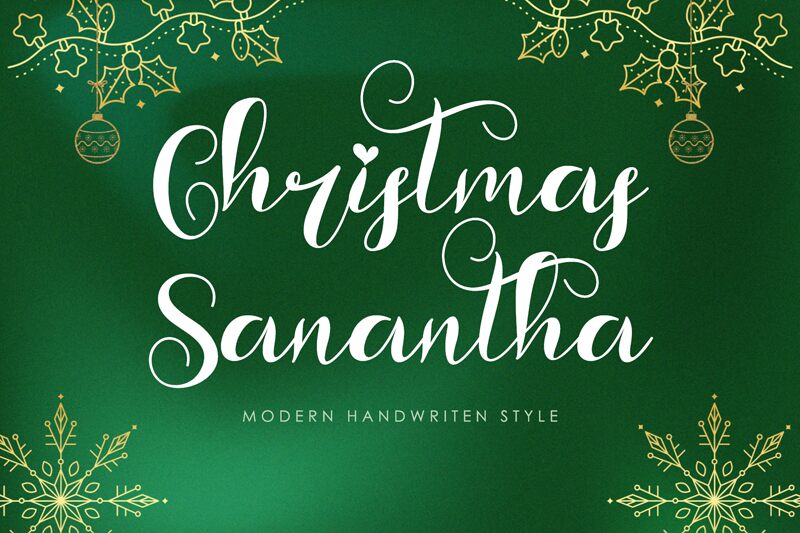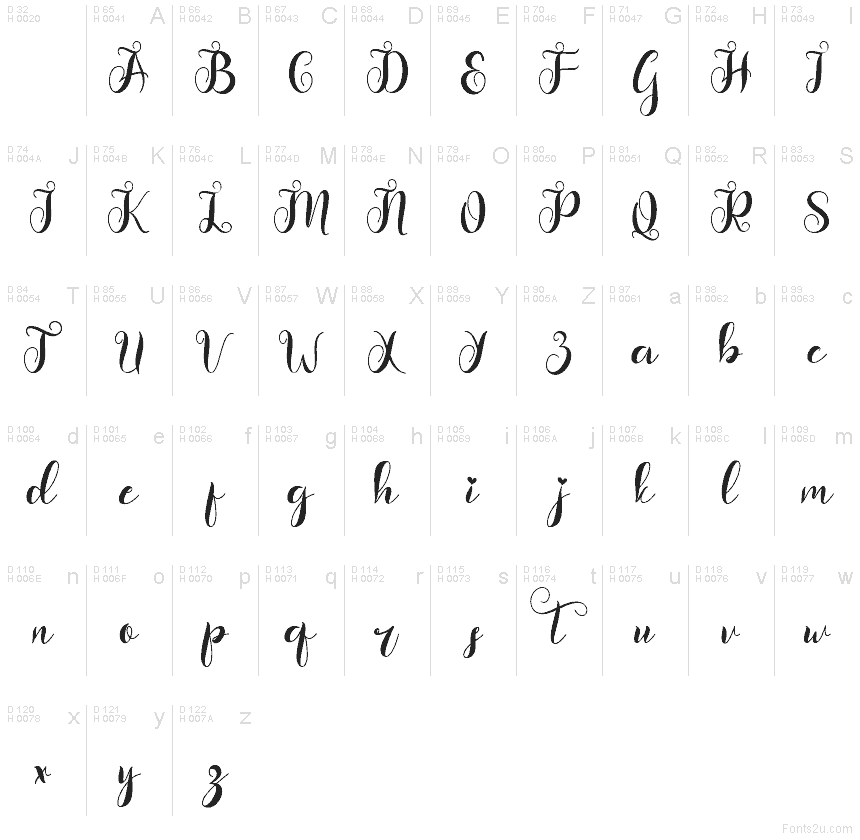
Christmas Sanantha
Christmas Sanantha font by Yoga Letter is a free holiday calligraphy typeface that captures the feeling of handwritten Christmas cards and frosted shop windows. Loose, looping strokes curl into generous swashes, while the inky texture feels like it was brushed straight onto the page with a slightly wet pen. There’s an easy rhythm to the letters that makes “Merry Christmas” and cozy greetings feel warm, personal, and a little bit magical.
Using Christmas Sanantha, you can bring that charm to greeting cards, gift tags, party invitations, festive logos, social media graphics, and seasonal packaging. This free font shines when you give it room to breathe in larger sizes, then pair it with a simple sans serif for body text so the script can sing.